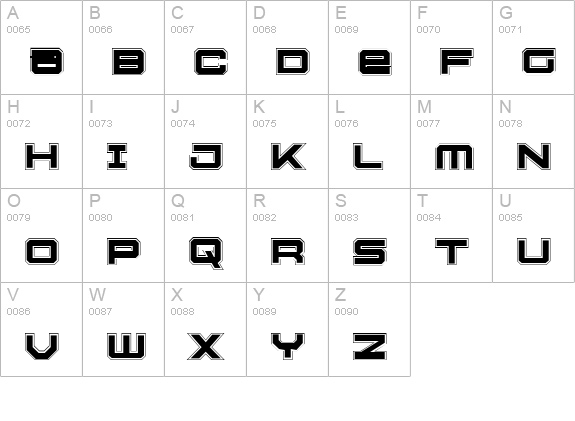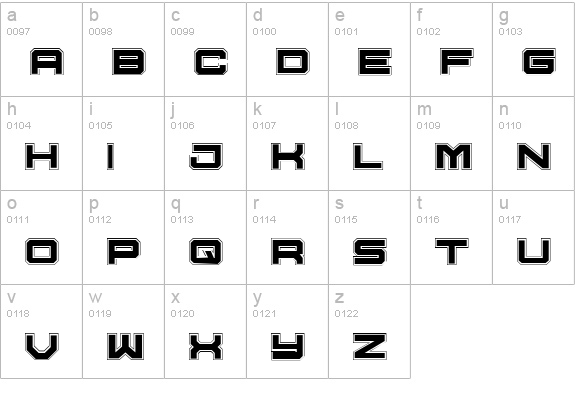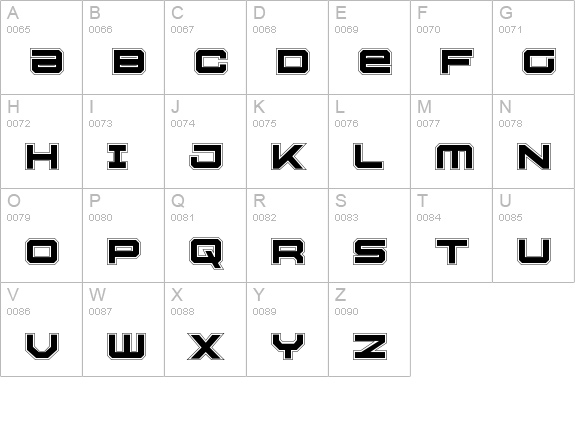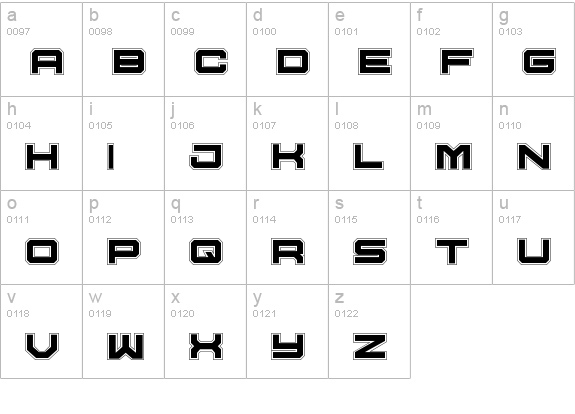
The U.S.S. Dallas Academy font exudes elegance and sophistication with its sleek lines and modern design. Perfect for adding a touch of class to any project, this font is versatile and eye-catching. Whether you're designing a logo, creating a poster, or crafting a unique social media post, the U.S.S. Dallas Academy font will elevate your work to the next level. And the best part? This stunning font is completely free to download at FontsMarket.com! Don't miss out on the opportunity to enhance your designs with the U.S.S. Dallas Academy font today.